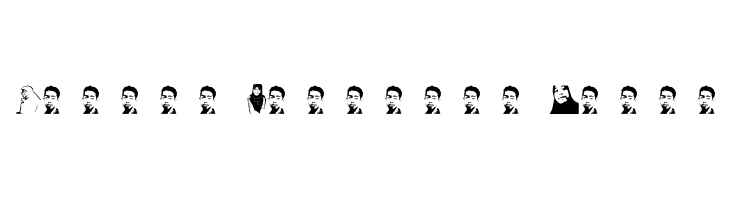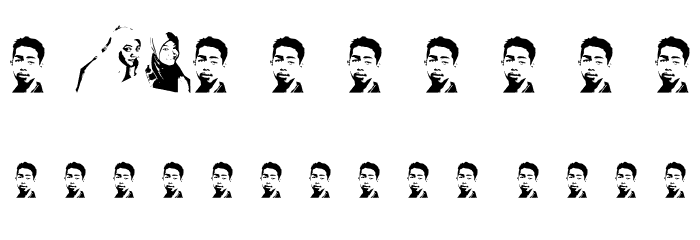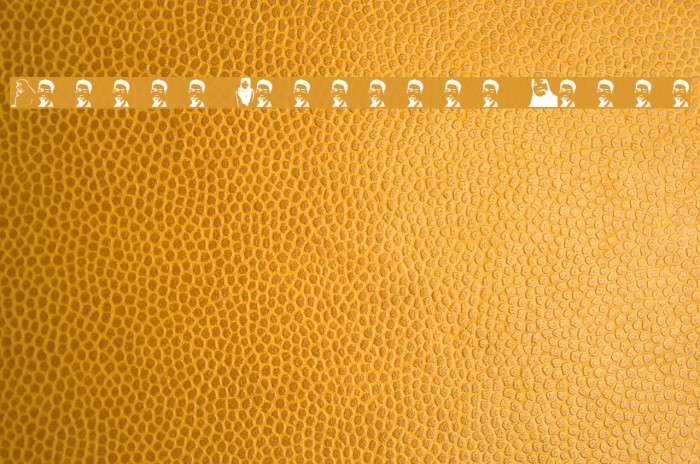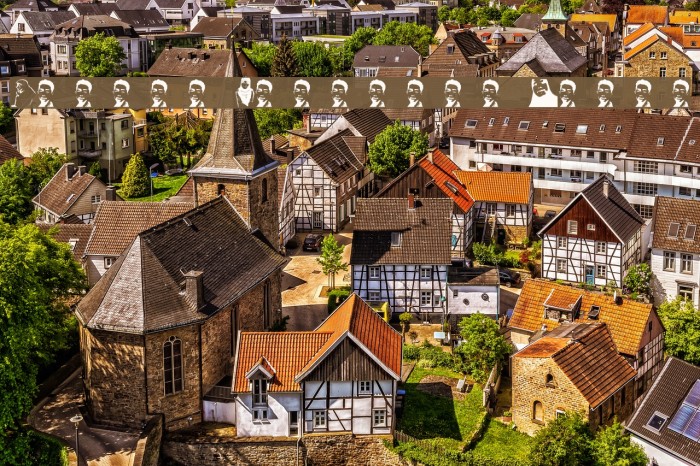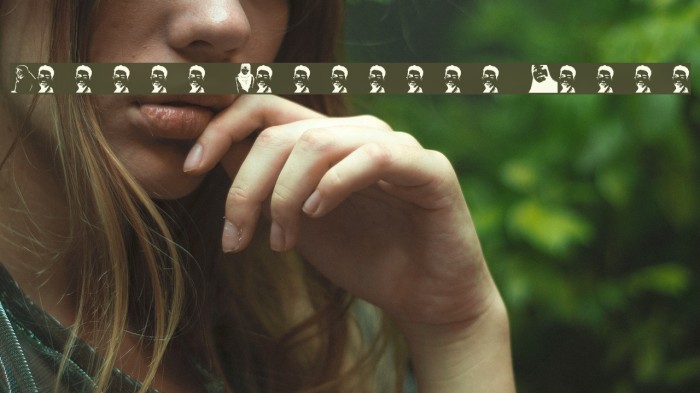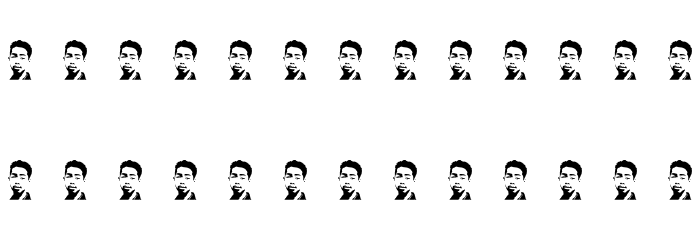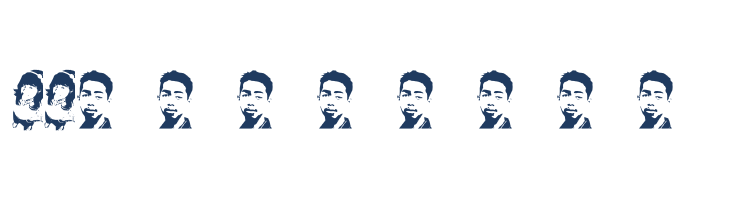
Genius Jempolan Royal Font
Genius Jempolan Royal Description
This set consists of black-and-white, high-contrast stencil-style portraits of people, arranged in a grid. The images are not typographic characters but rather stylized human faces and upper bodies, rendered in a graphic, posterized manner.
ContrastHigh
Overall StyleDecorative, Artistic, Stencil
Use CaseGraphic art, posters, visual identity, not for text.
Proposed ProjectsArt projects, posters, graphic design, collage, or visual storytelling.